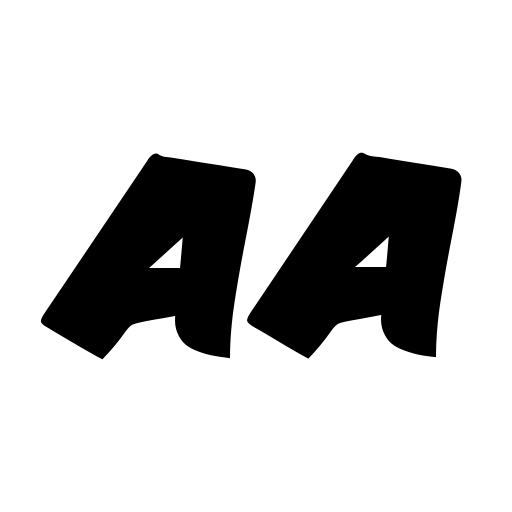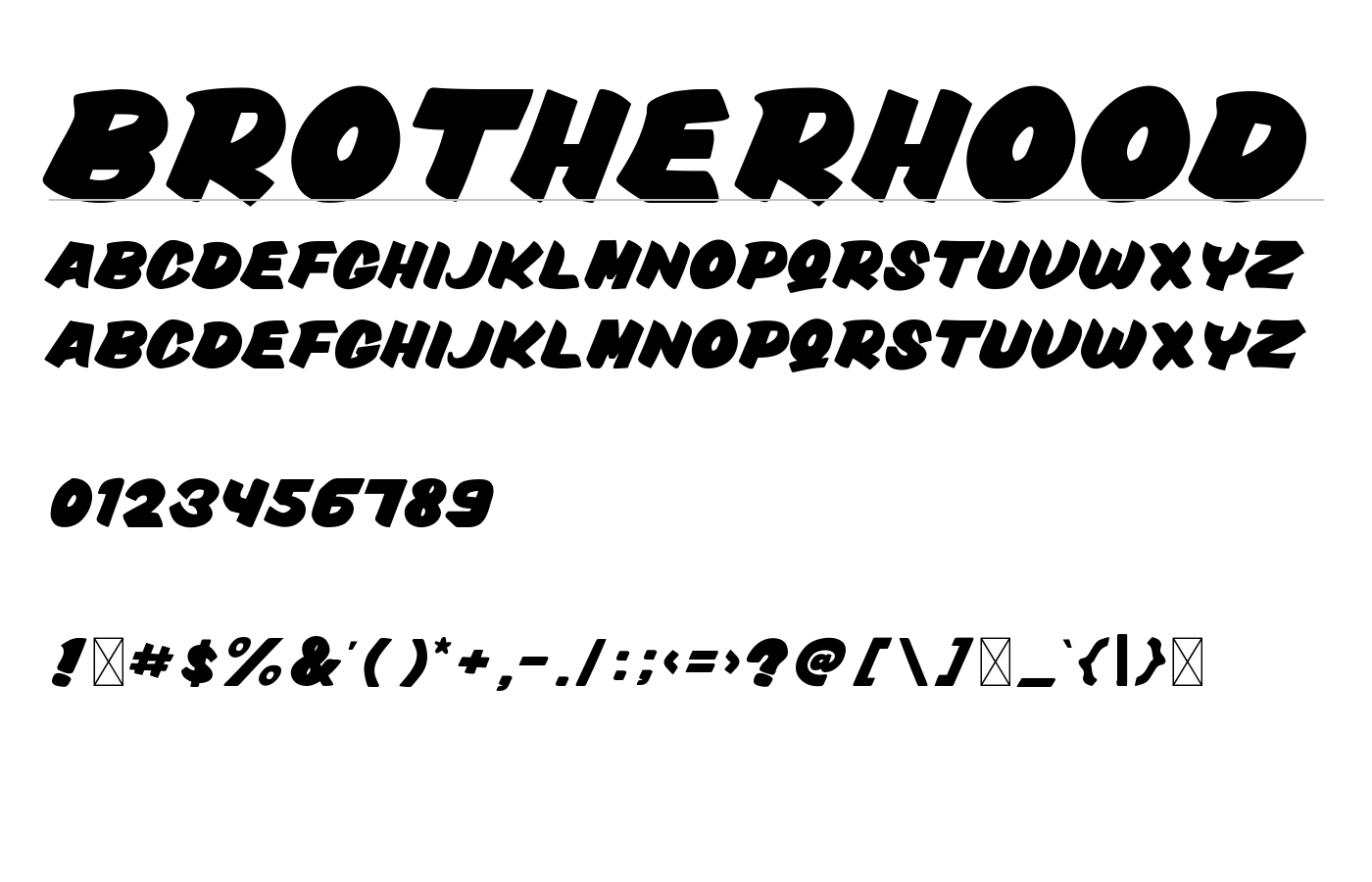
Brotherhood is a bold, playful sans serif font with a strong, energetic feel. Its wide, slightly condensed letterforms and smooth, rounded edges create an inviting yet powerful presence, making it ideal for eye-catching headlines, logos, and posters that seek a fun and confident tone. This font works best in creative branding and display settings where impact and personality are key.
Brotherhood Font
About Brotherhood Font
| Font family | Brotherhood Font |
| Designer | Doli Harahap |